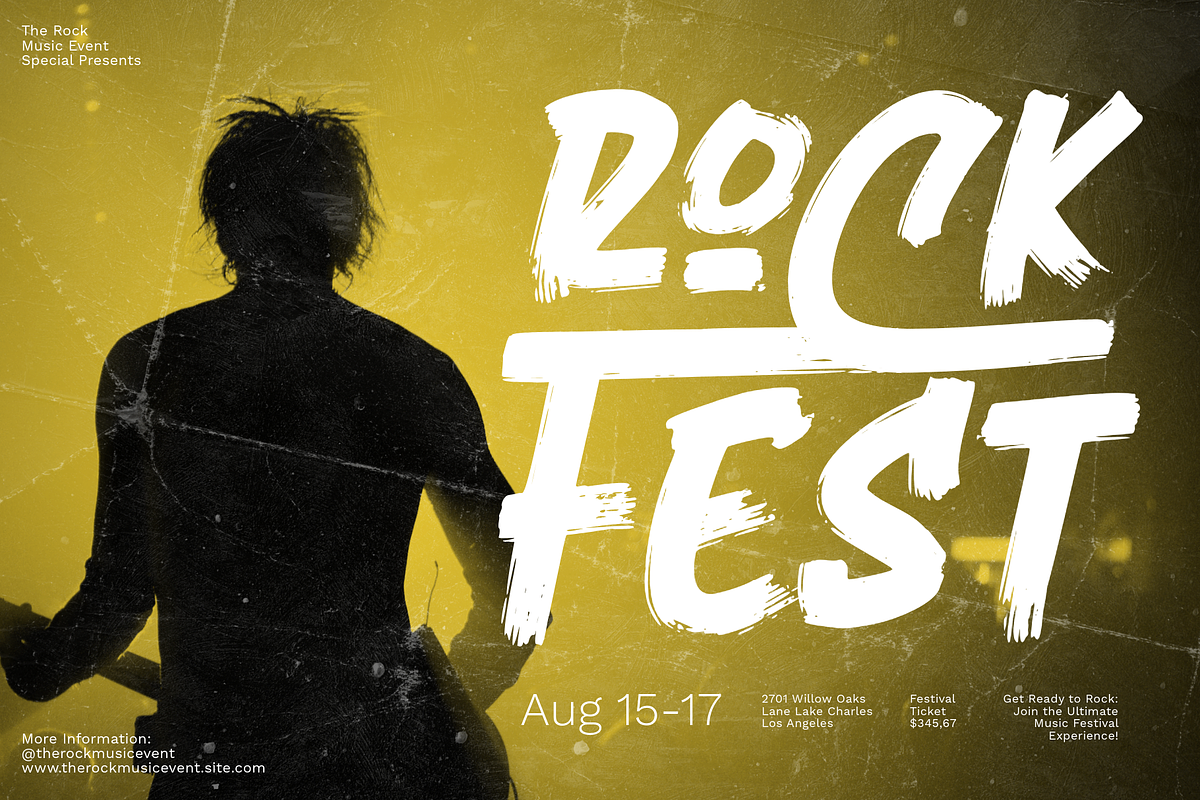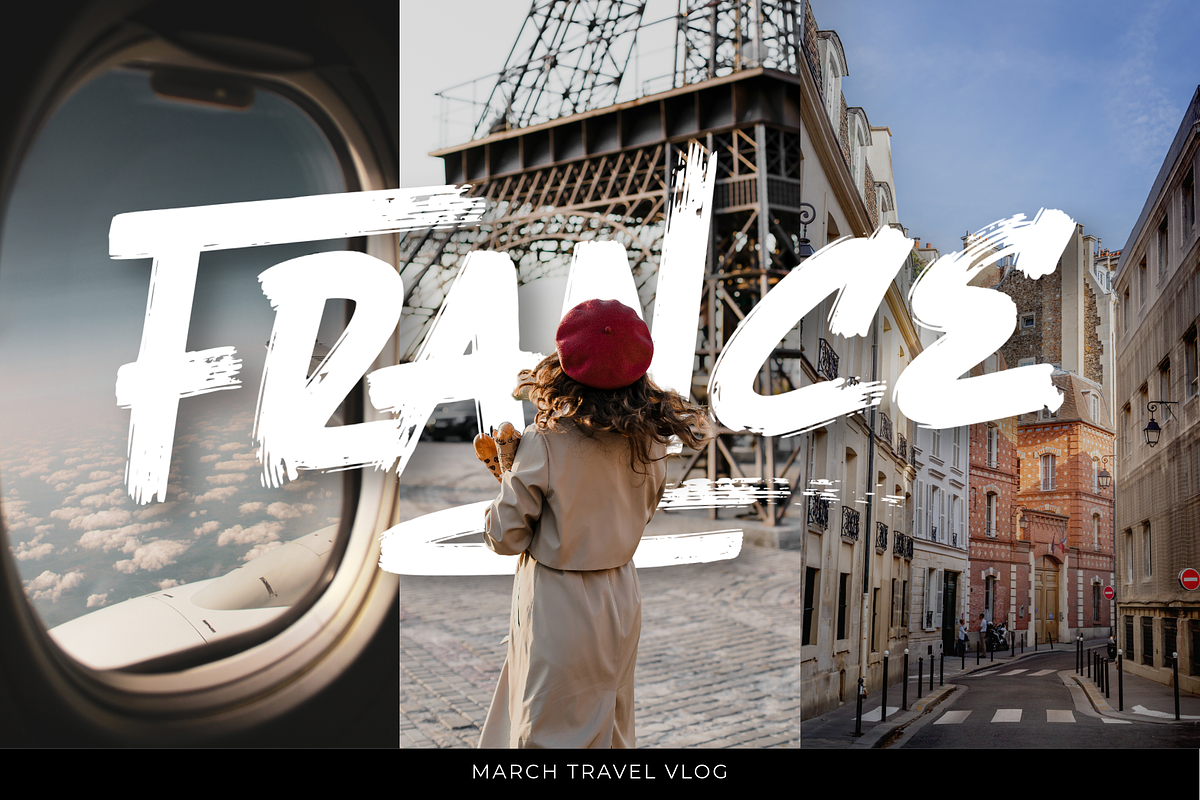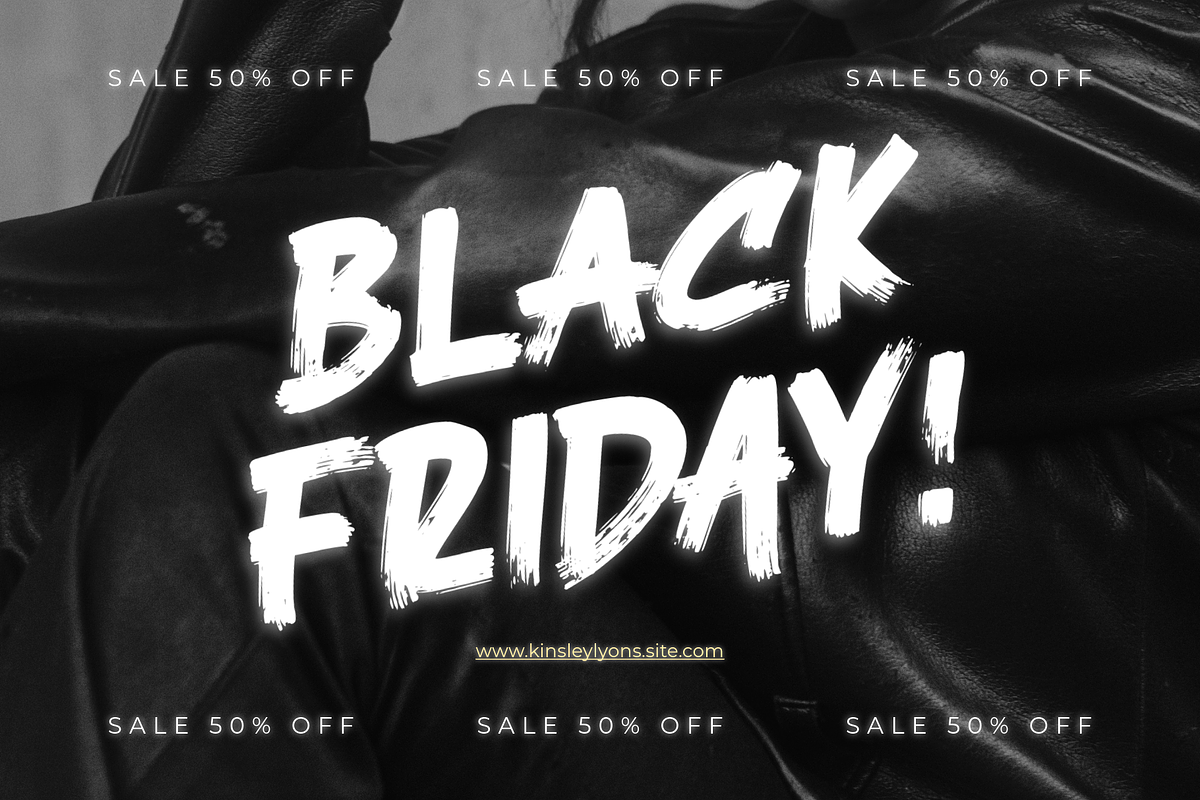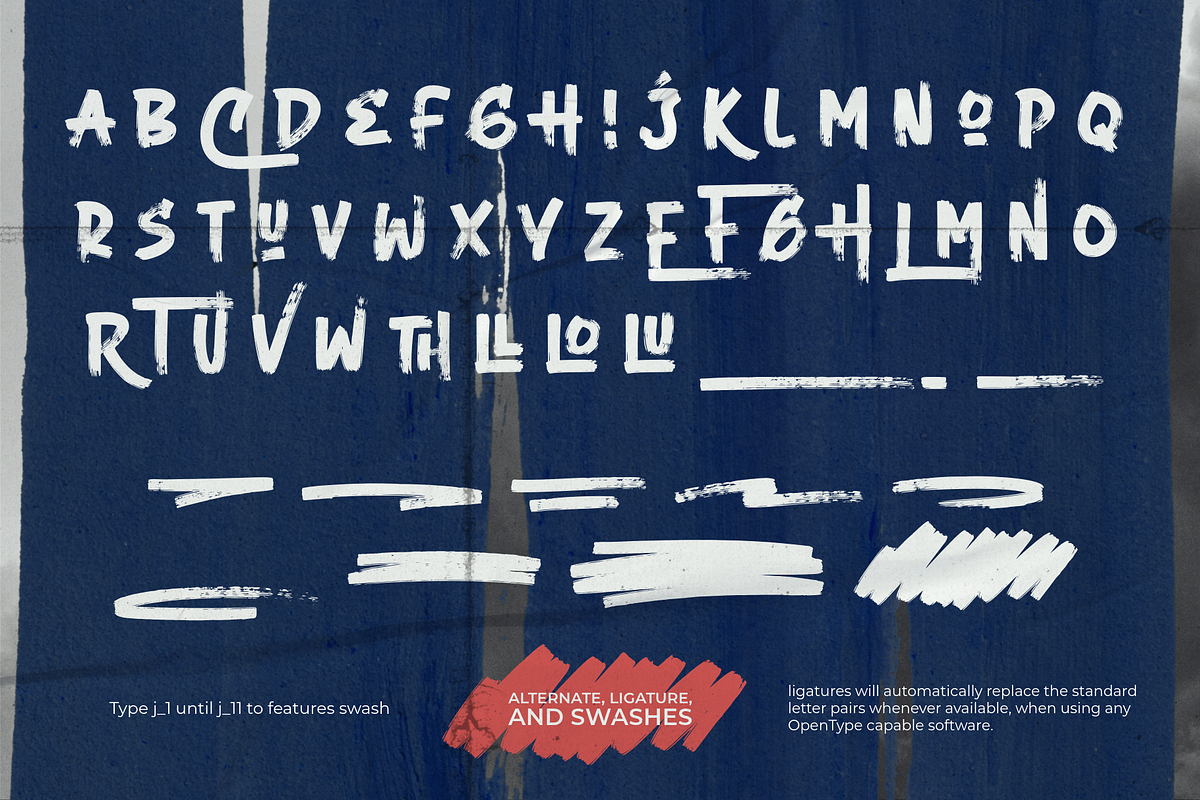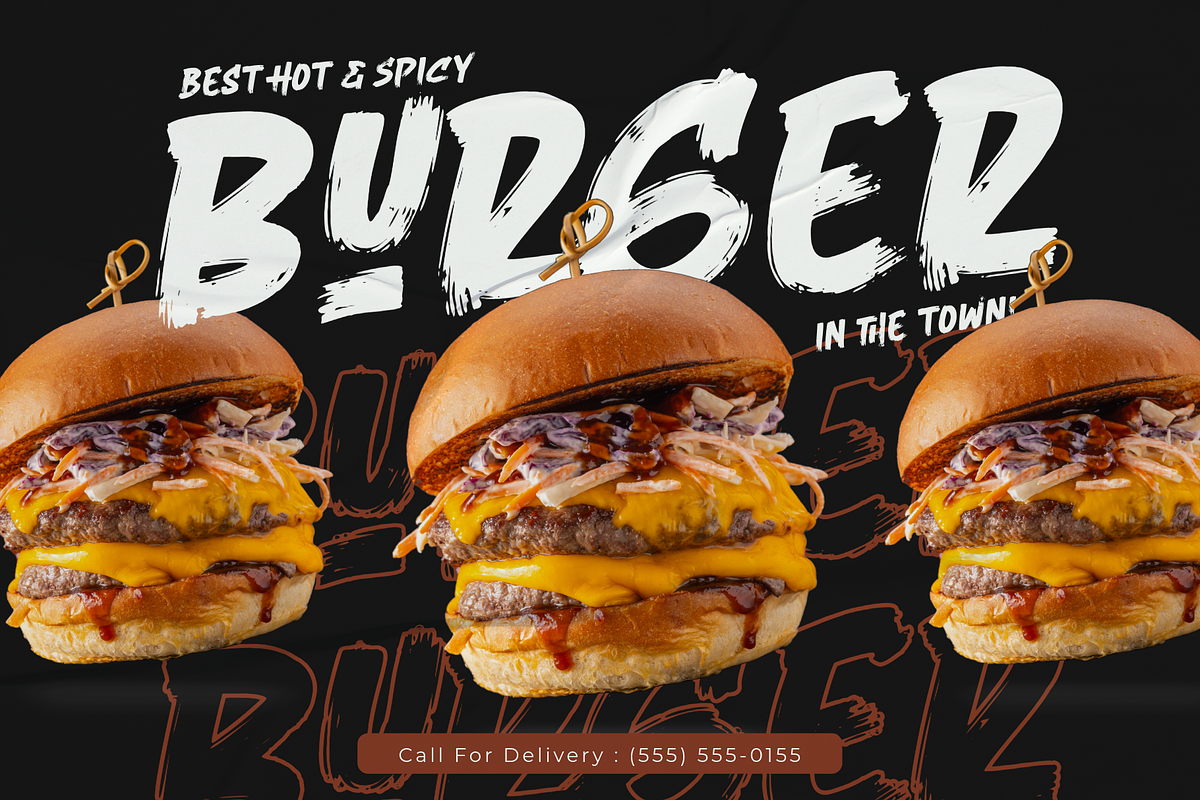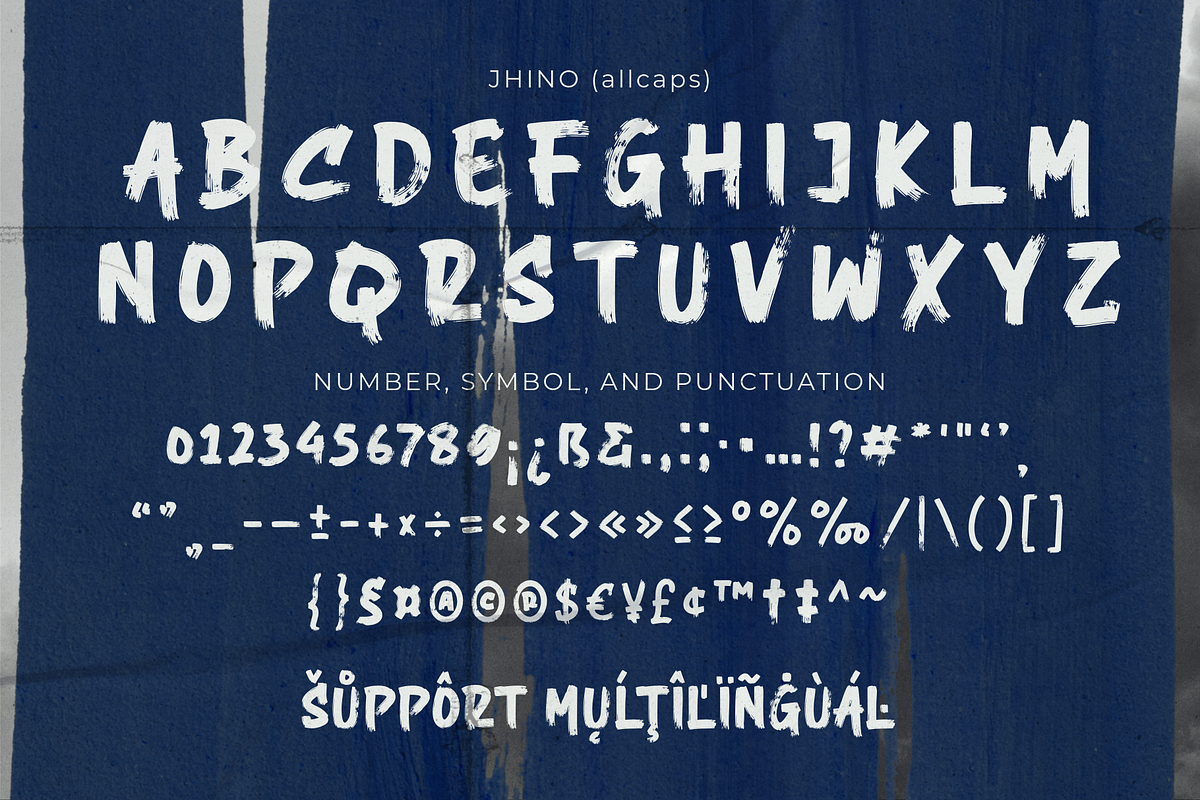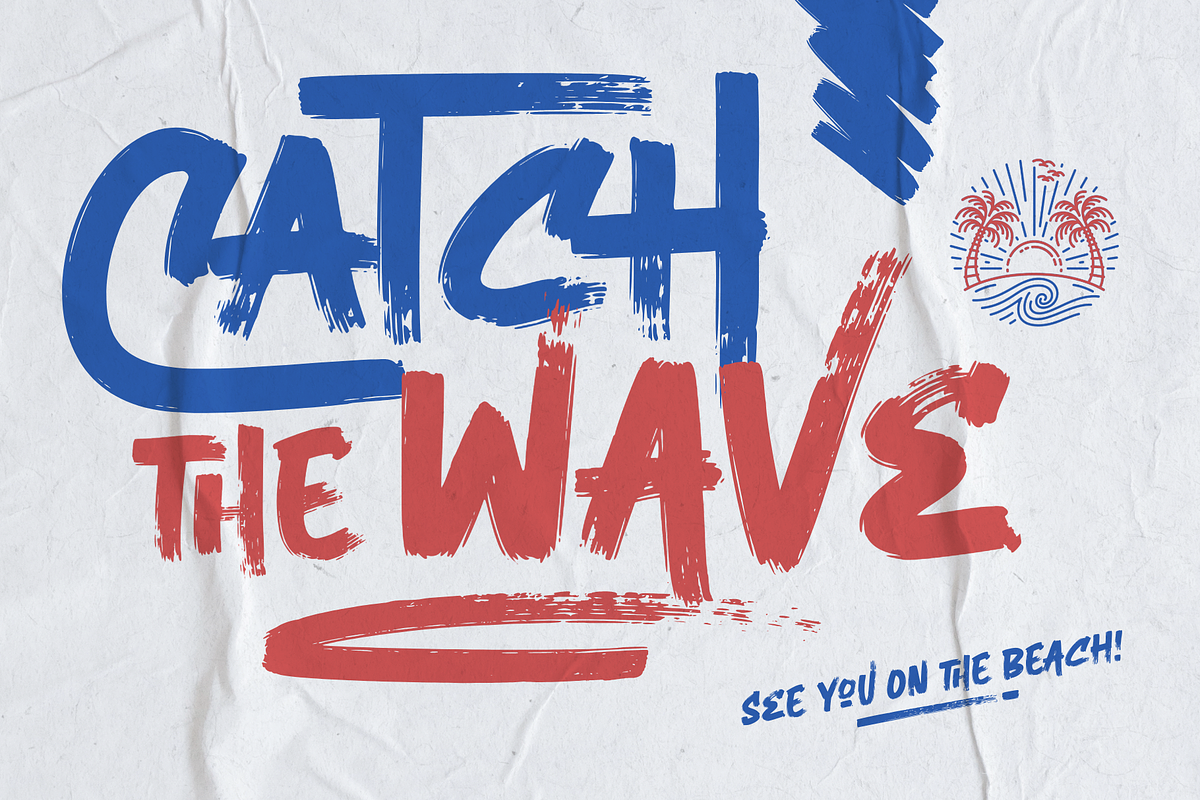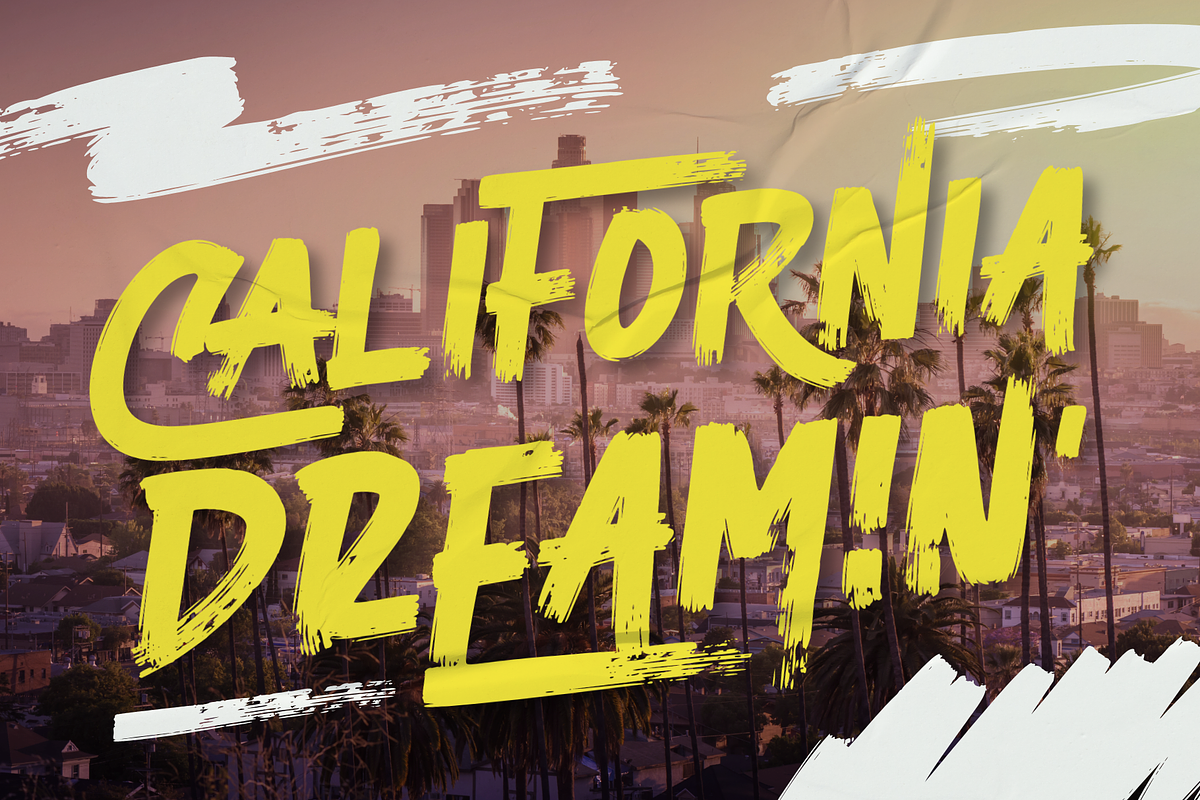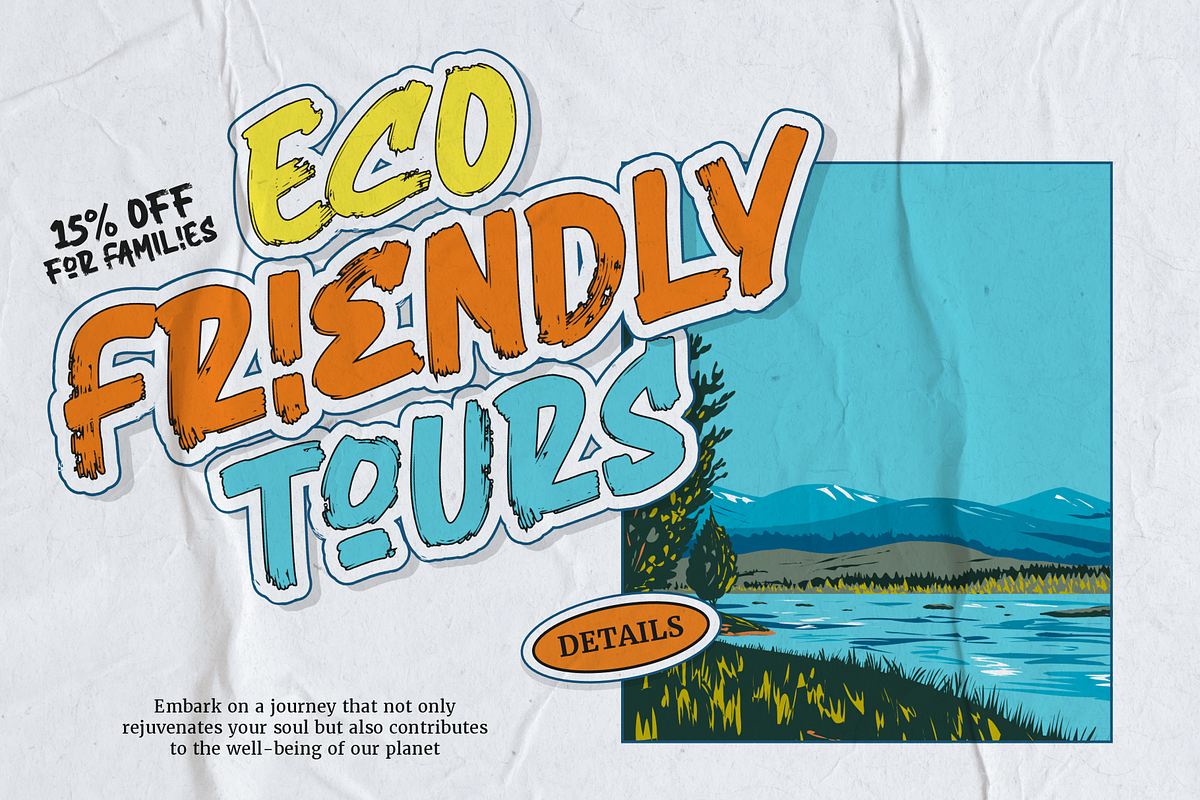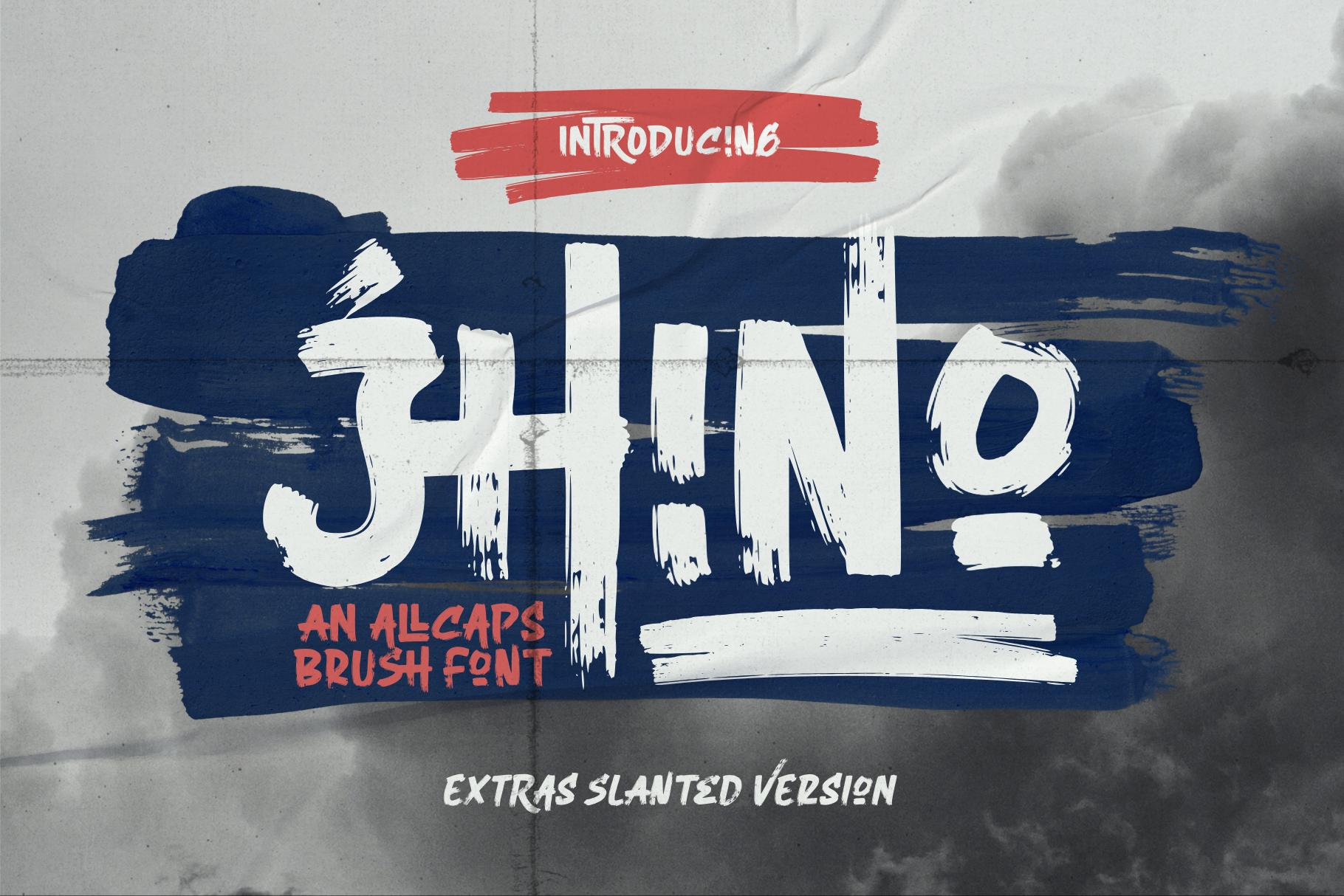
Jhino - An Allcaps Brush Font
Introducing Jhino, an all-caps brush font designed to make your text stand out with bold, artistic flair. This font brings a dynamic and expressive style to your projects, perfect for grabbing attention and making a statement. The unique brush strokes add a personal and handcrafted touch, making it ideal for posters, headlines, branding, this font features unique brush strokes that give a handcrafted feel. It also includes an extra slanted version for added style.
- Allcaps
- Number, symbol, and punctuation
- Alternate, ligatures, and swashes
Type j_1 until j_11 to features swash, ligatures will automatically replace the standard letter pairs whenever available, when using any OpenType capable software.